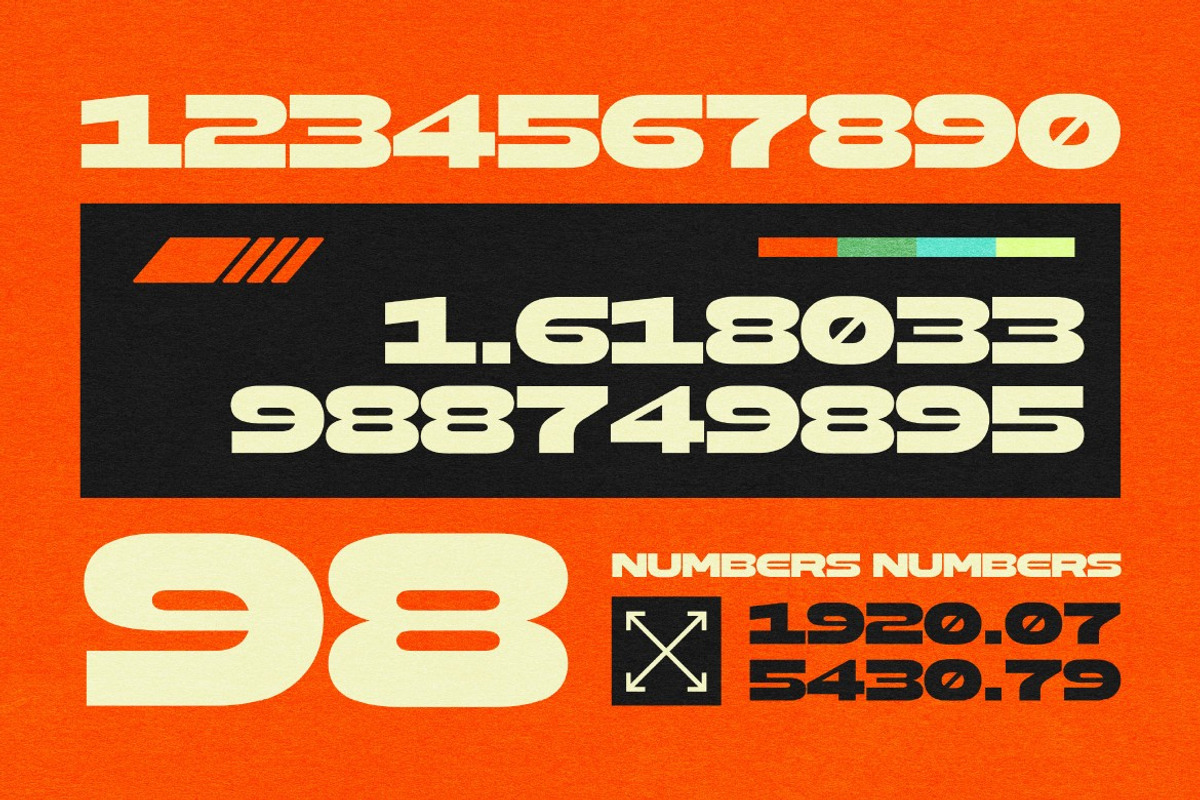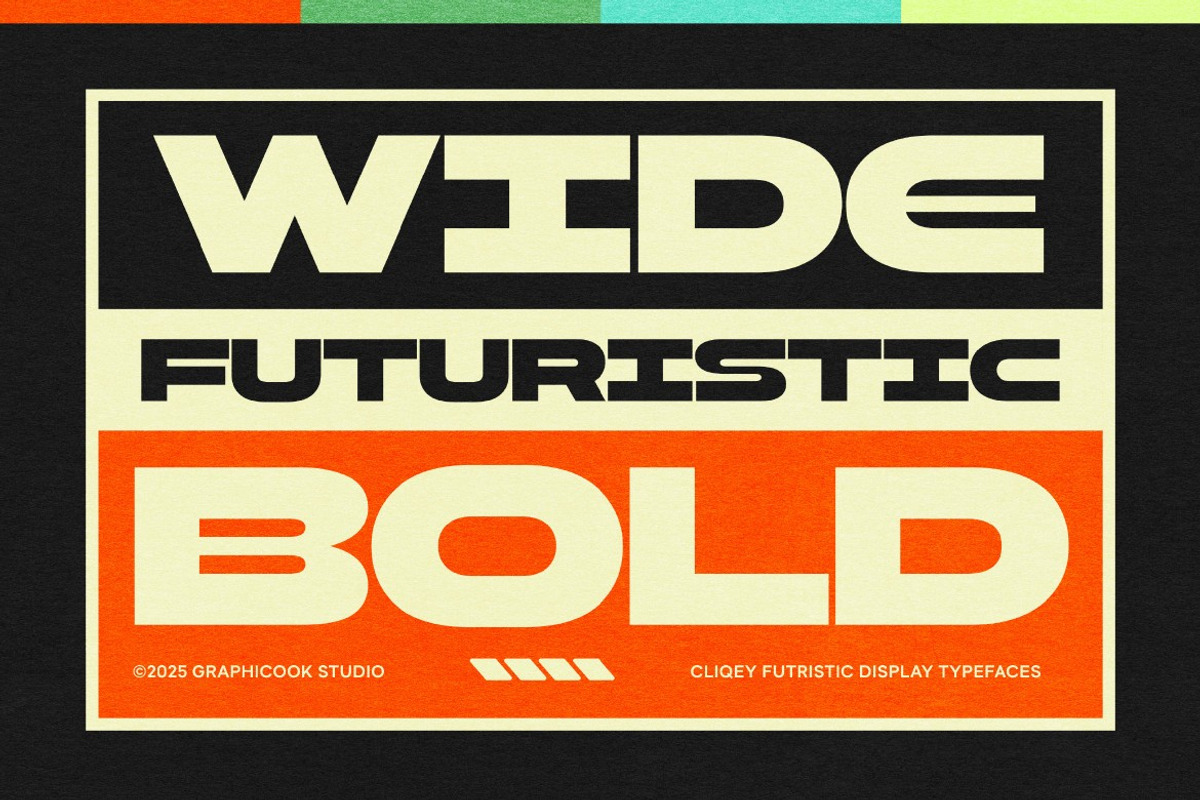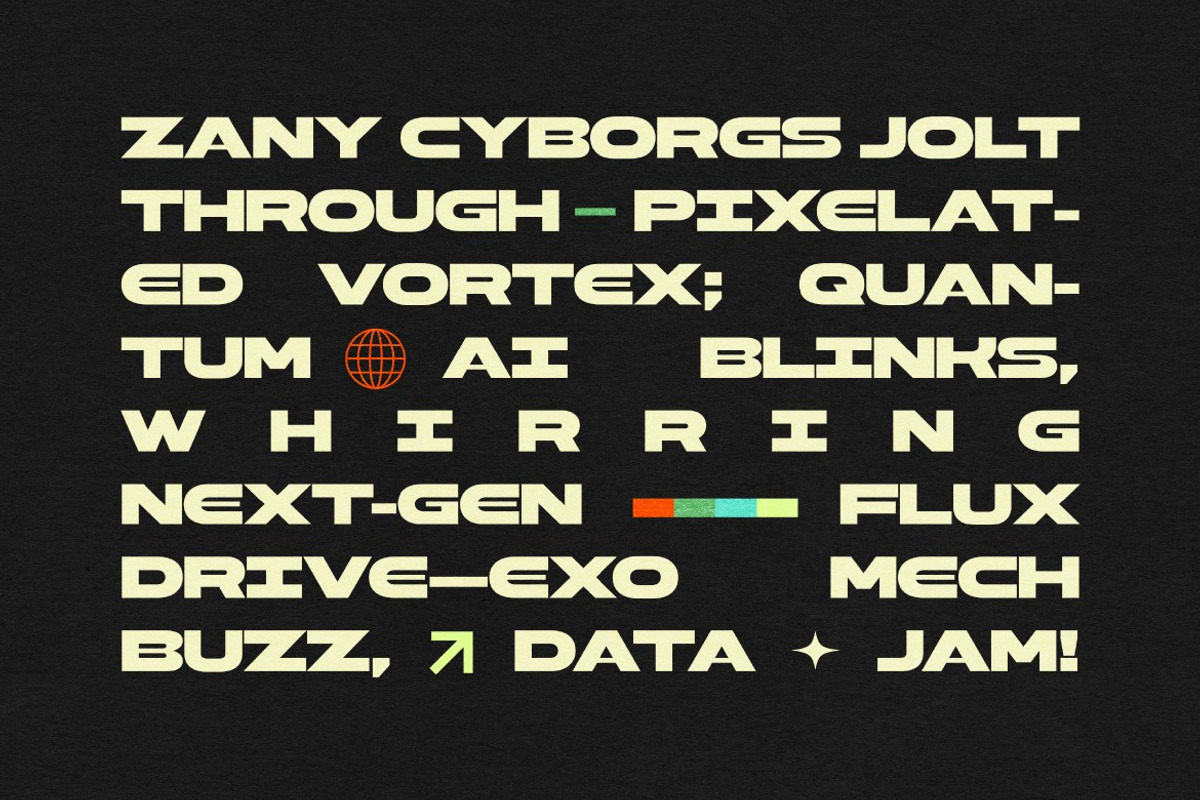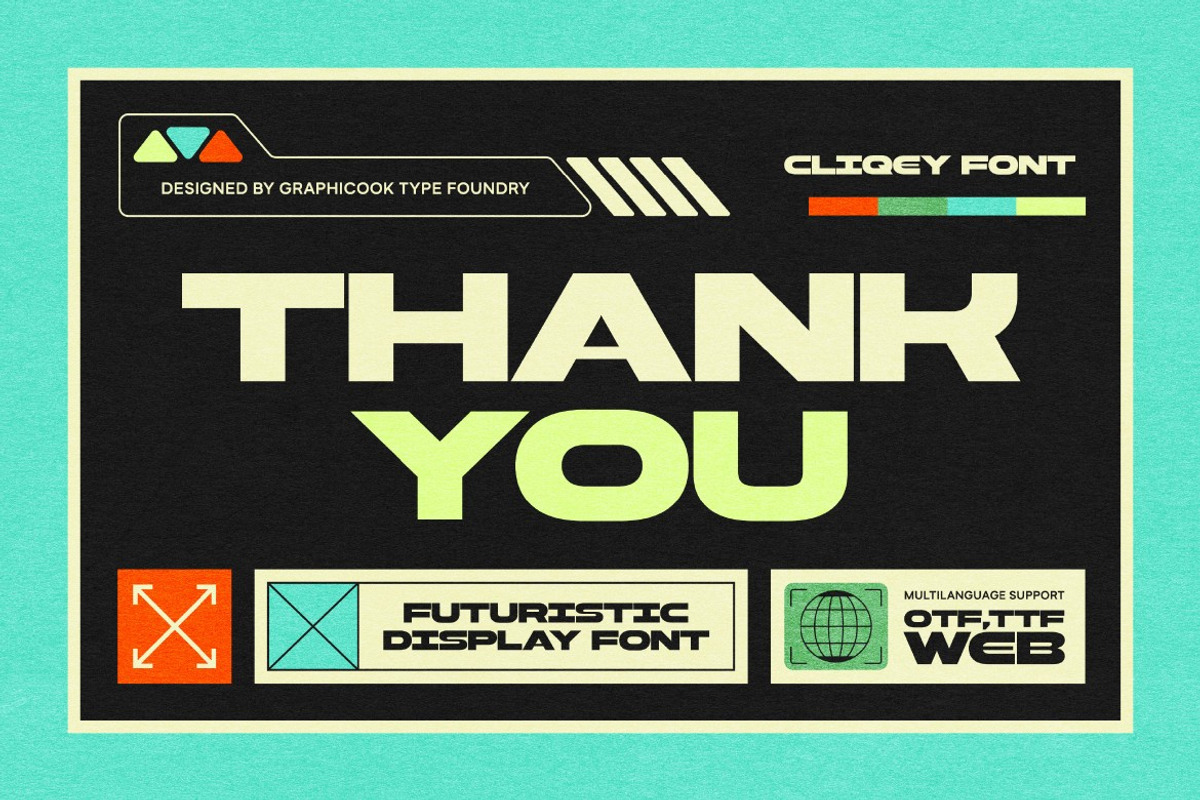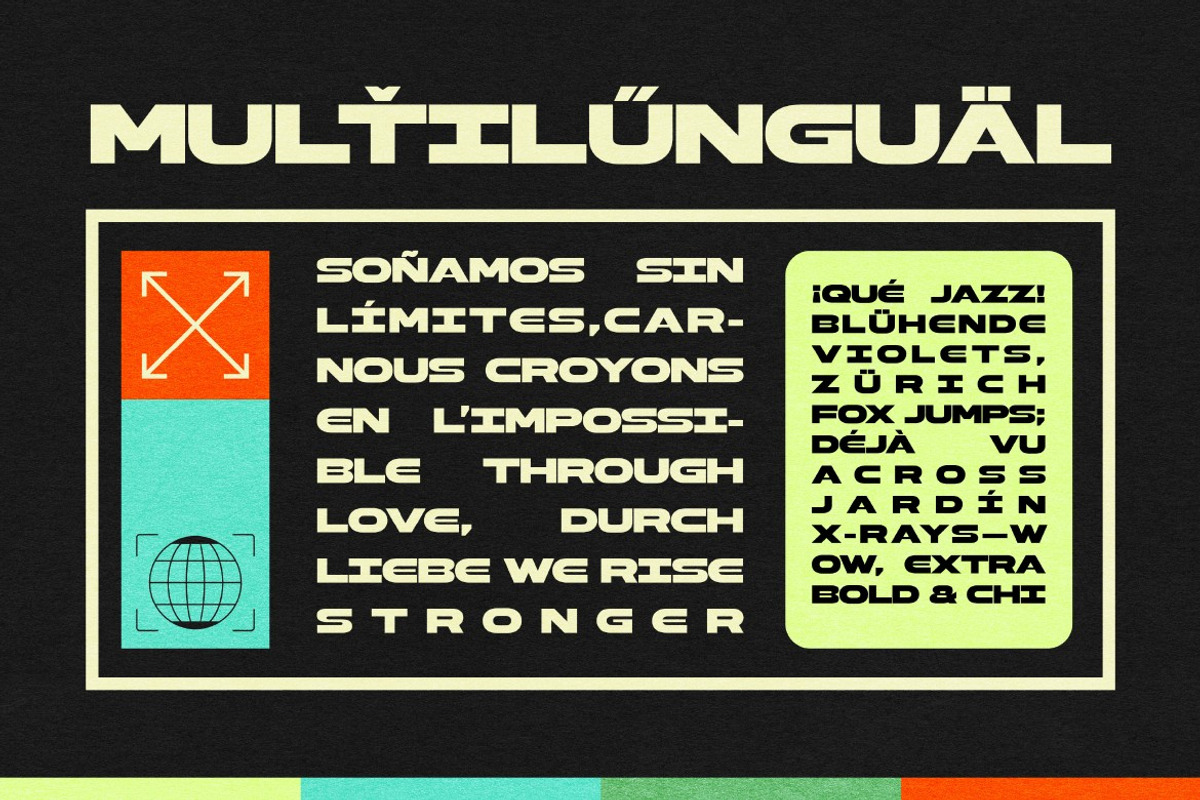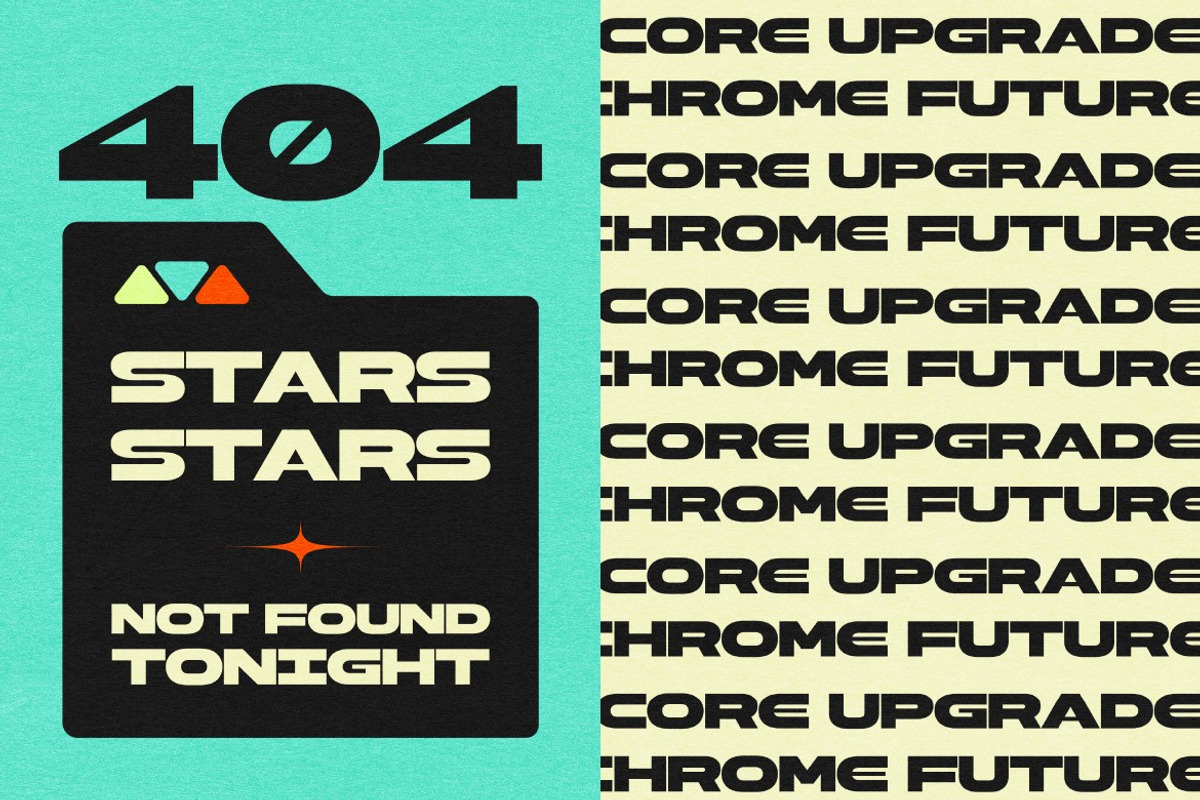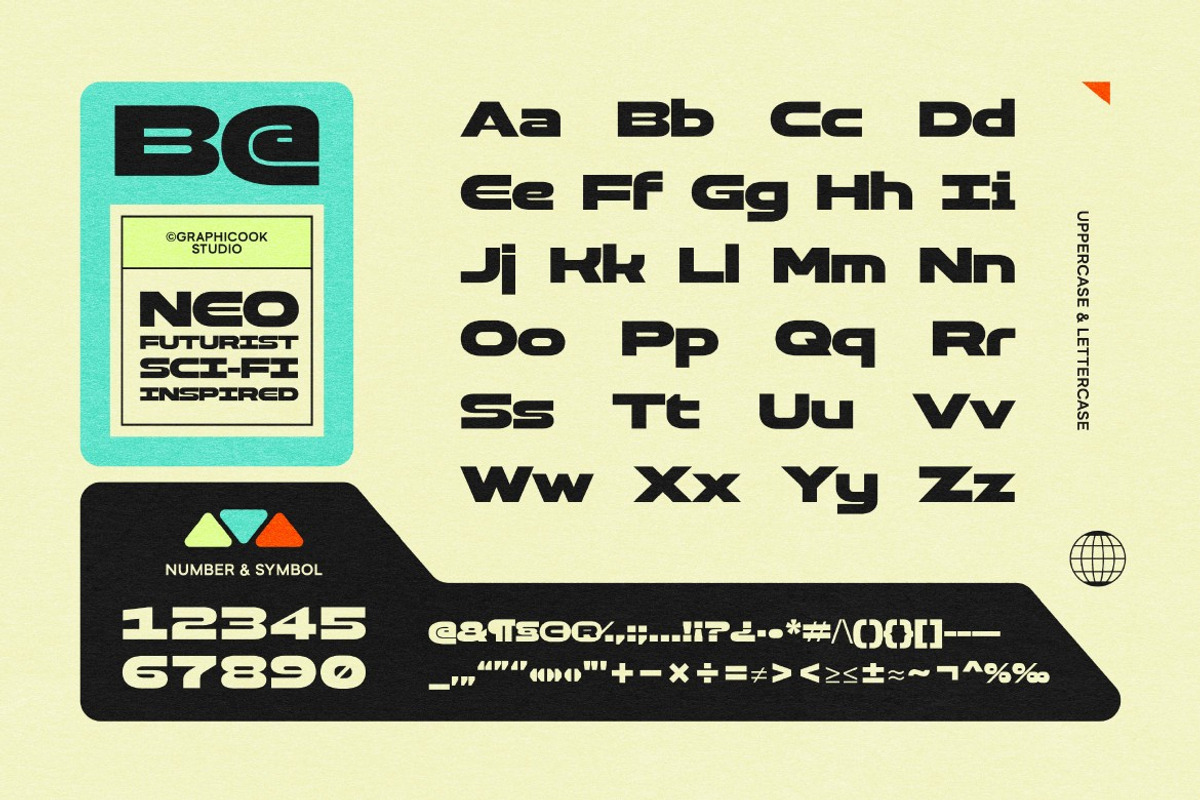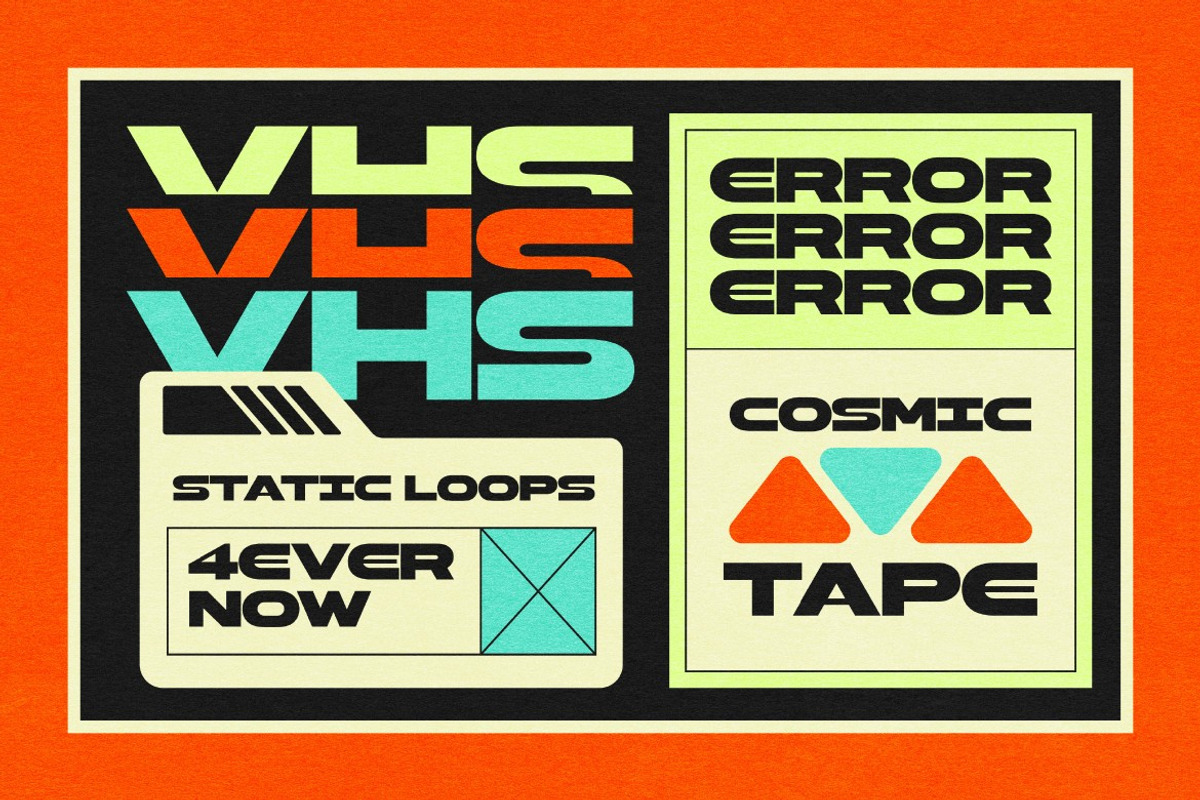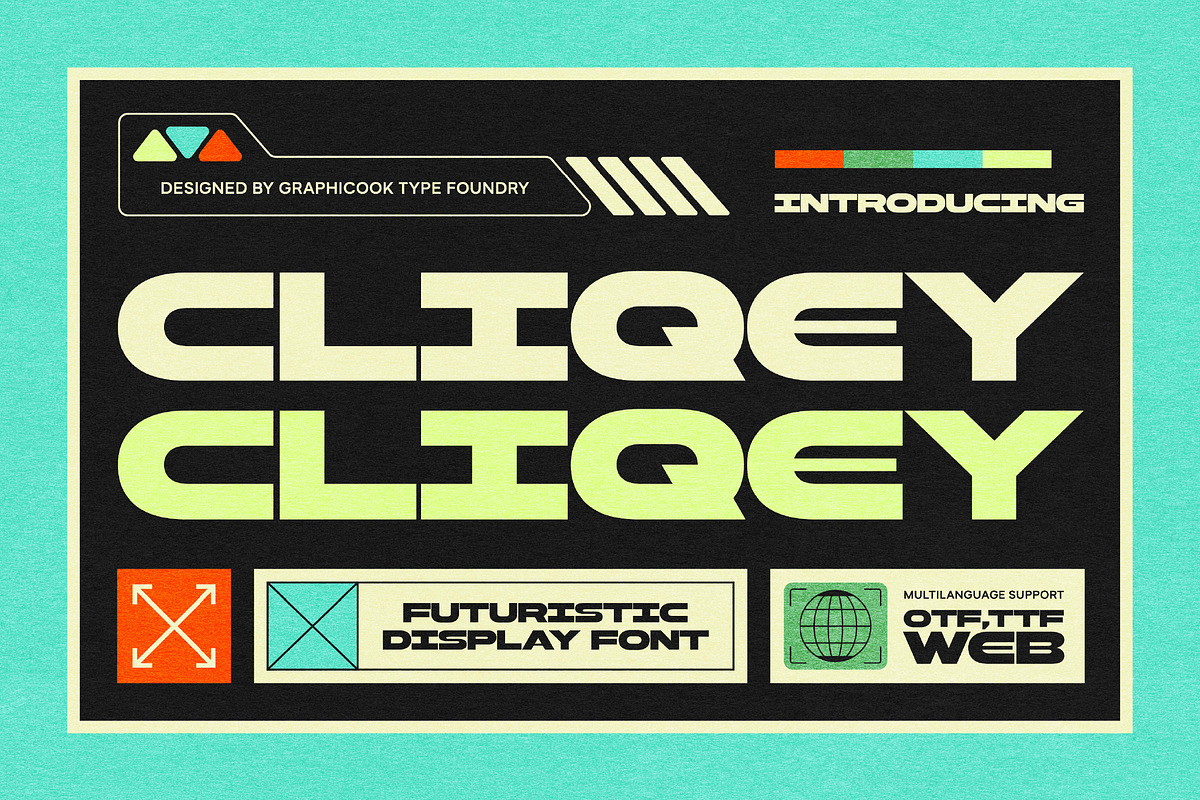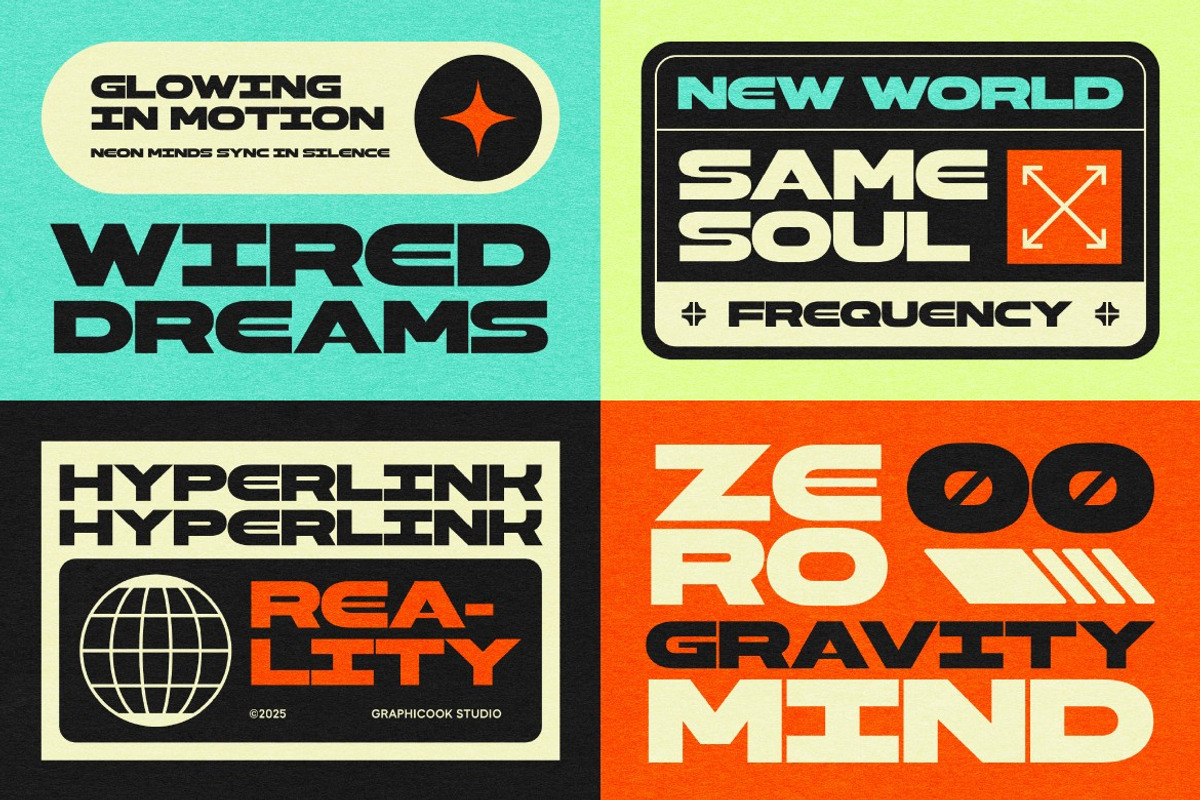
Cliqey
Cliqey is a futuristic display font with a clean, bold, and wide design. It fuses futuristic styling with a playful twist, making it perfect for posters, UI, or bold and distinctive branding projects.
It is perfect for headlines, logotypes, magazines, packaging, quotes, movies, games, cover albums, book covers, and flyers, it's a perfect solution for creating eye-catching designs that stand out in any context.